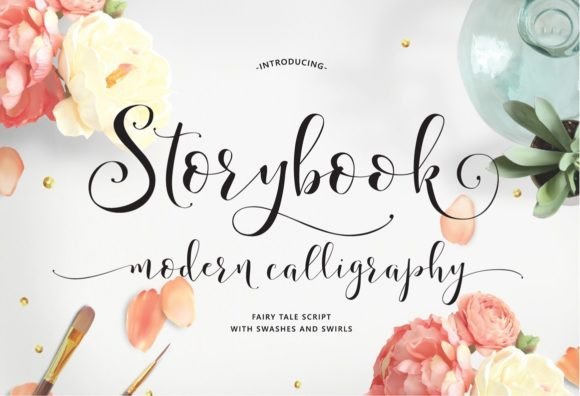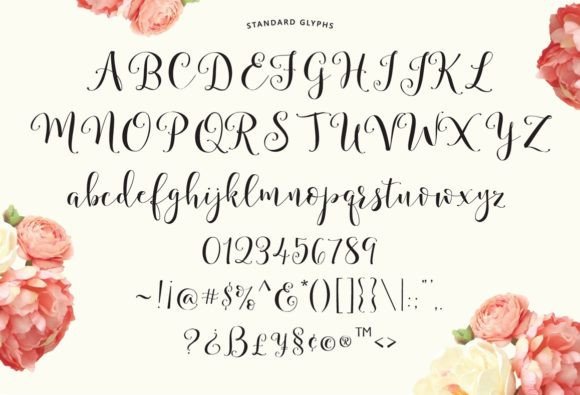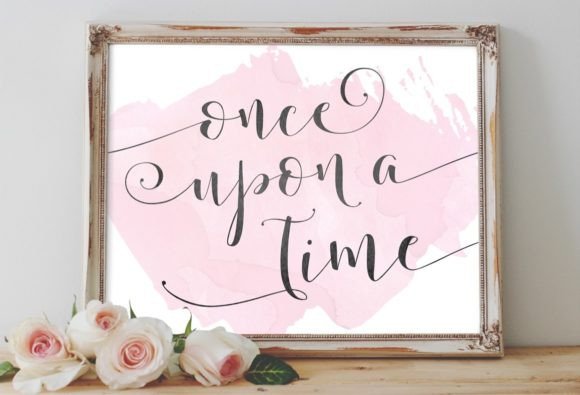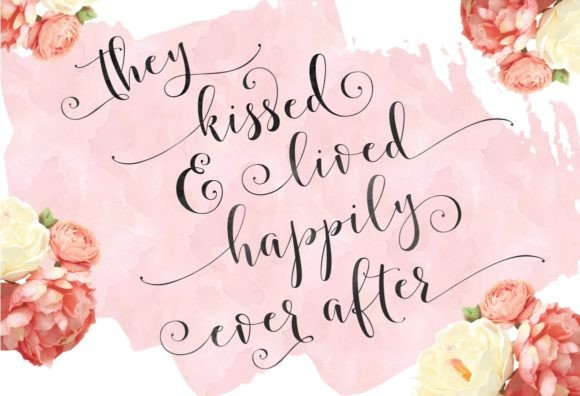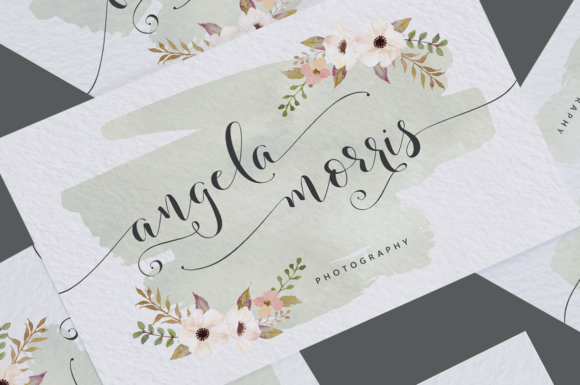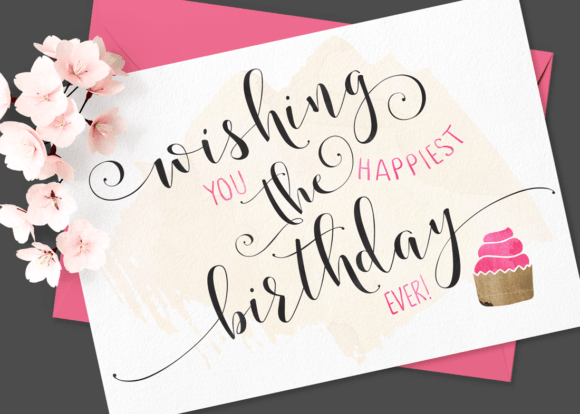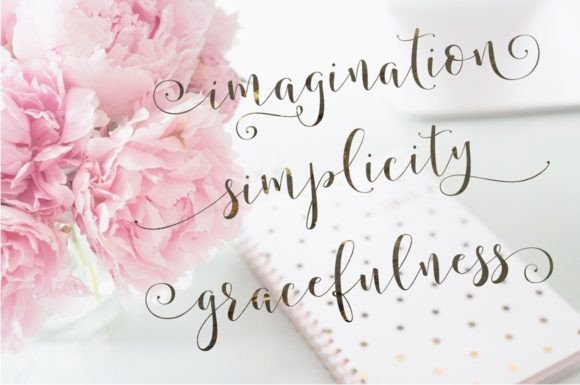
Storybook Font
Introducing Storybook! Longer swashes and bigger swirls. This fresh, warm, decorative hand-lettered typeface is perfect for weddings, logos, stationery & more!